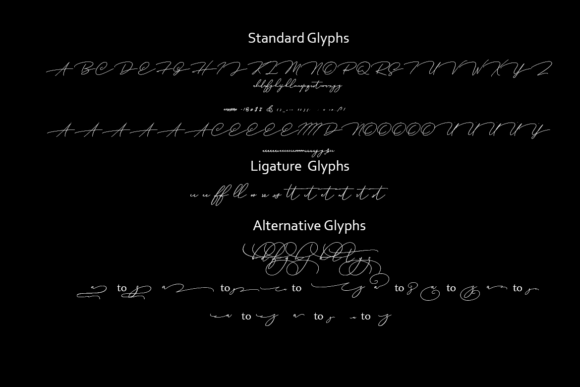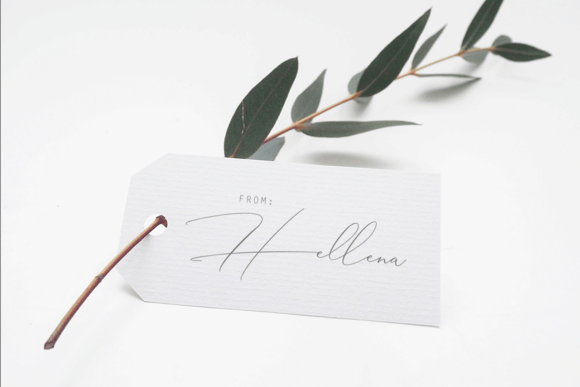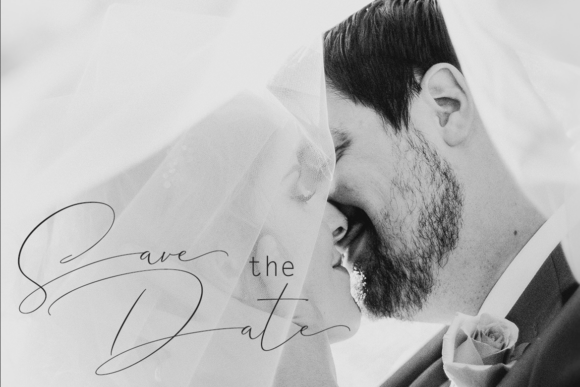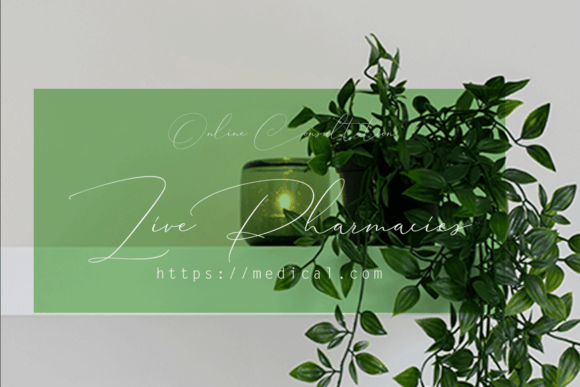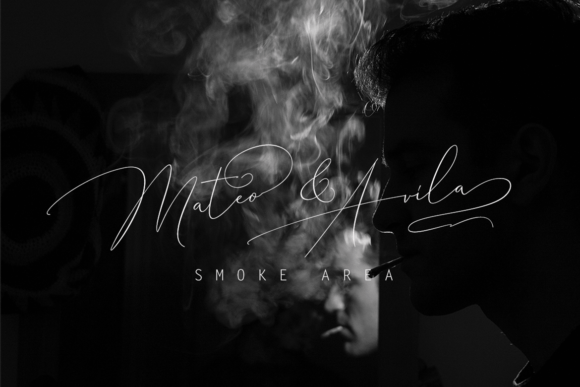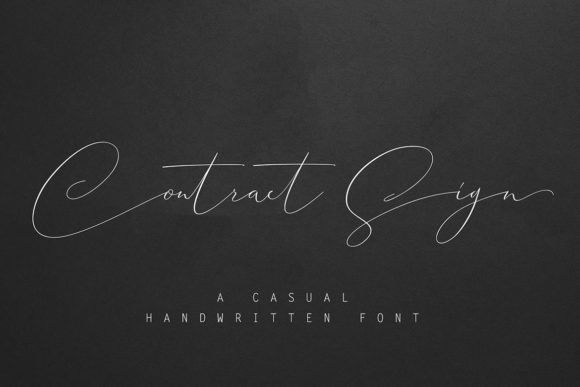
Introducing Contract Sign Font: Elevate Your Designs with Elegance
In the world of design, typography plays a crucial role in conveying the message and aesthetic of a project. Whether you’re a seasoned designer or a crafty DIY enthusiast, finding the right font can make all the difference. That’s where Contract Sign Font comes in – a magical script font that adds a touch of elegance to any creative project.
What is Contract Sign Font?
Contract Sign Font is a carefully crafted script font designed to bring a sense of sophistication and refinement to your designs. With its flowing lines and intricate details, this font is perfect for adding a touch of luxury to any project. Whether you’re working on a branding campaign, a wedding invitation, or a DIY craft, Contract Sign Font is sure to impress.
Key Features of Contract Sign Font
- Elegant Script Design: Contract Sign Font boasts a beautiful script design that’s perfect for creating stunning headlines, titles, and quotes.
- Magical Touch: With its whimsical flair, this font adds a touch of magic to any design, making it perfect for creative projects that require a bit of personality.
- Versatile: Contract Sign Font is suitable for a wide range of design applications, from Instagram graphics to calligraphy scripts, and even DIY projects.
Uses for Contract Sign Font
Contract Sign Font is an incredibly versatile font that can be used in a variety of design applications. Here are a few ideas to get you started:
- Instagram Graphics: Add a touch of elegance to your Instagram feed with Contract Sign Font. Use it to create stunning quotes, captions, and headlines that are sure to grab attention.
- Calligraphy Scripts: Contract Sign Font is perfect for creating beautiful calligraphy scripts for DIY projects, such as wedding invitations, party decorations, and more.
- Branding and Advertising: Use Contract Sign Font to add a touch of sophistication to your branding and advertising materials, such as logos, brochures, and business cards.
- DIY Projects: Contract Sign Font is perfect for a wide range of DIY projects, from crafting and scrapbooking to home decor and party planning.
Tips for Using Contract Sign Font
Here are a few tips for getting the most out of Contract Sign Font:
- Experiment with Different Sizes: Contract Sign Font looks great in a variety of sizes, from large headlines to smaller body text. Experiment with different sizes to find the perfect fit for your design.
- Pair with Other Fonts: Contract Sign Font pairs well with a variety of other fonts, from sans-serif fonts to serif fonts. Experiment with different pairings to find the perfect combination for your design.
- Use it Sparingly: While Contract Sign Font is beautiful, it can be overwhelming if used too much. Use it sparingly to add a touch of elegance to your design without overwhelming the viewer.
Contract Sign Font is a magical script font that’s sure to elevate your designs with its touch of elegance. Whether you’re a designer or a crafter, this font is perfect for adding a touch of sophistication to any project. With its versatile design, ease of use, and wide range of applications, Contract Sign Font is a must-have for anyone looking to take their designs to the next level.